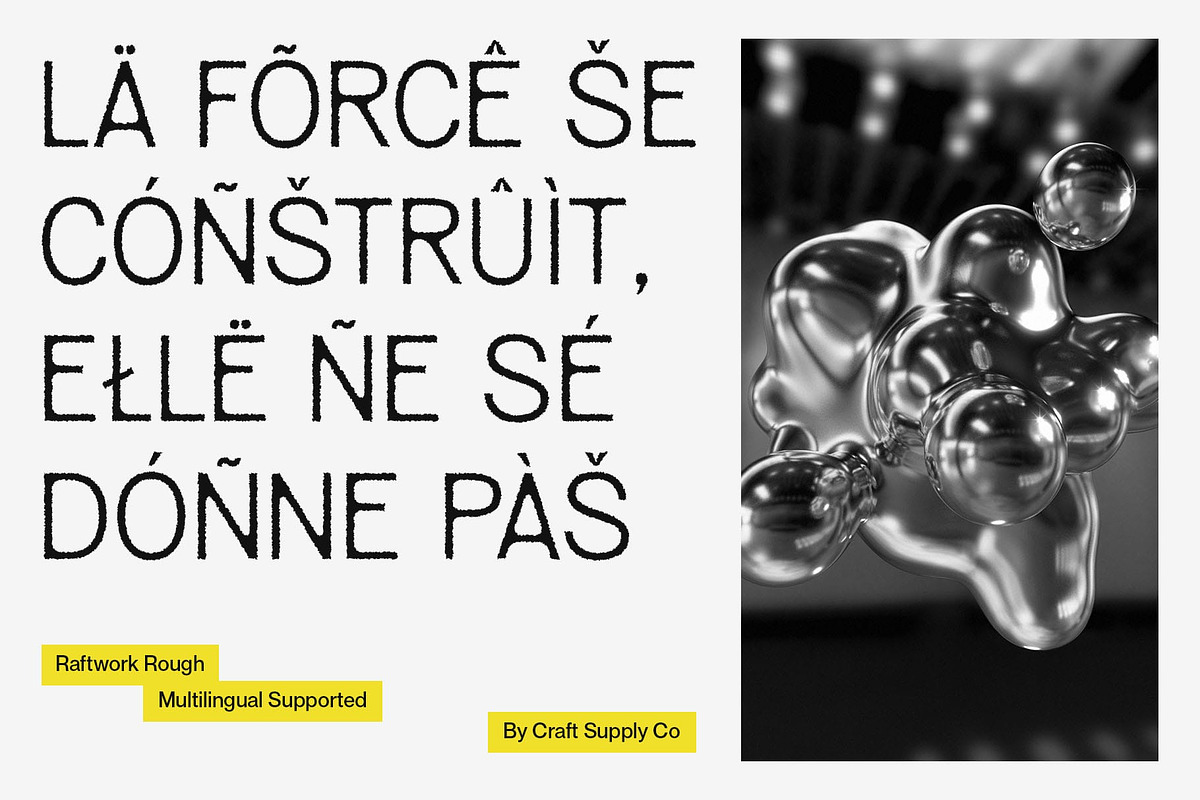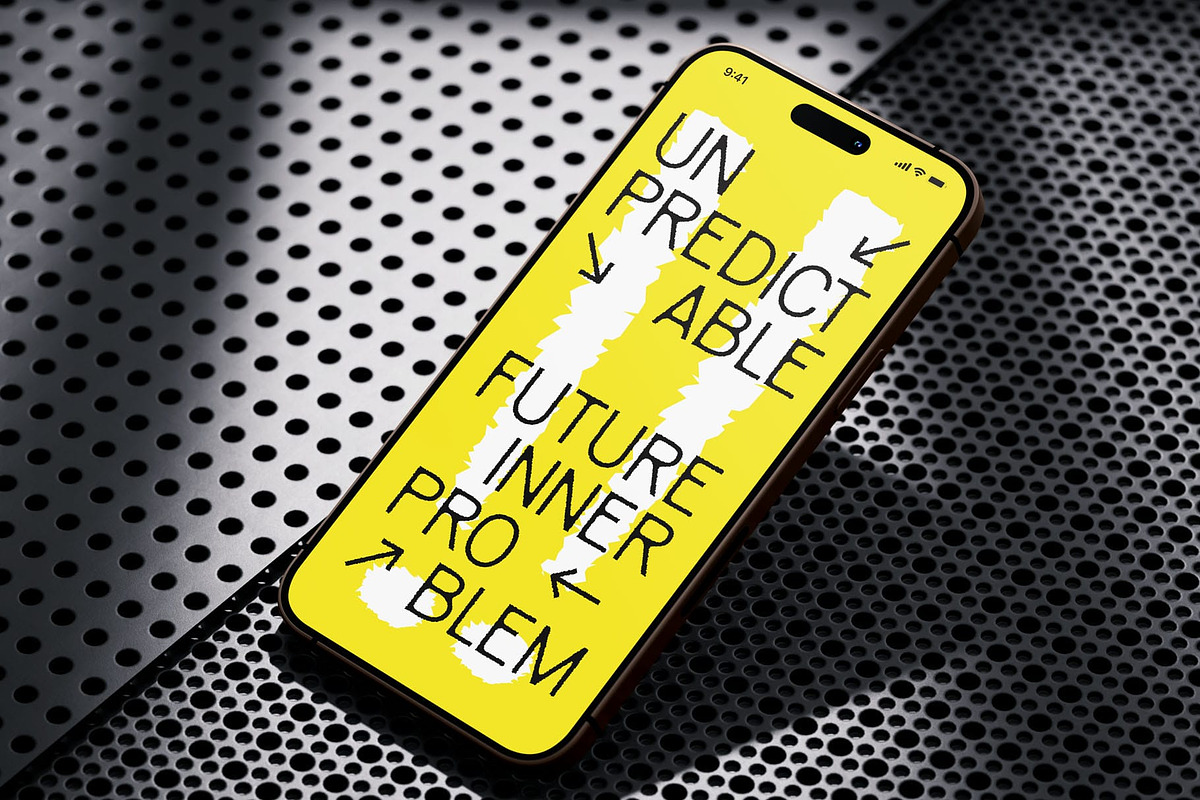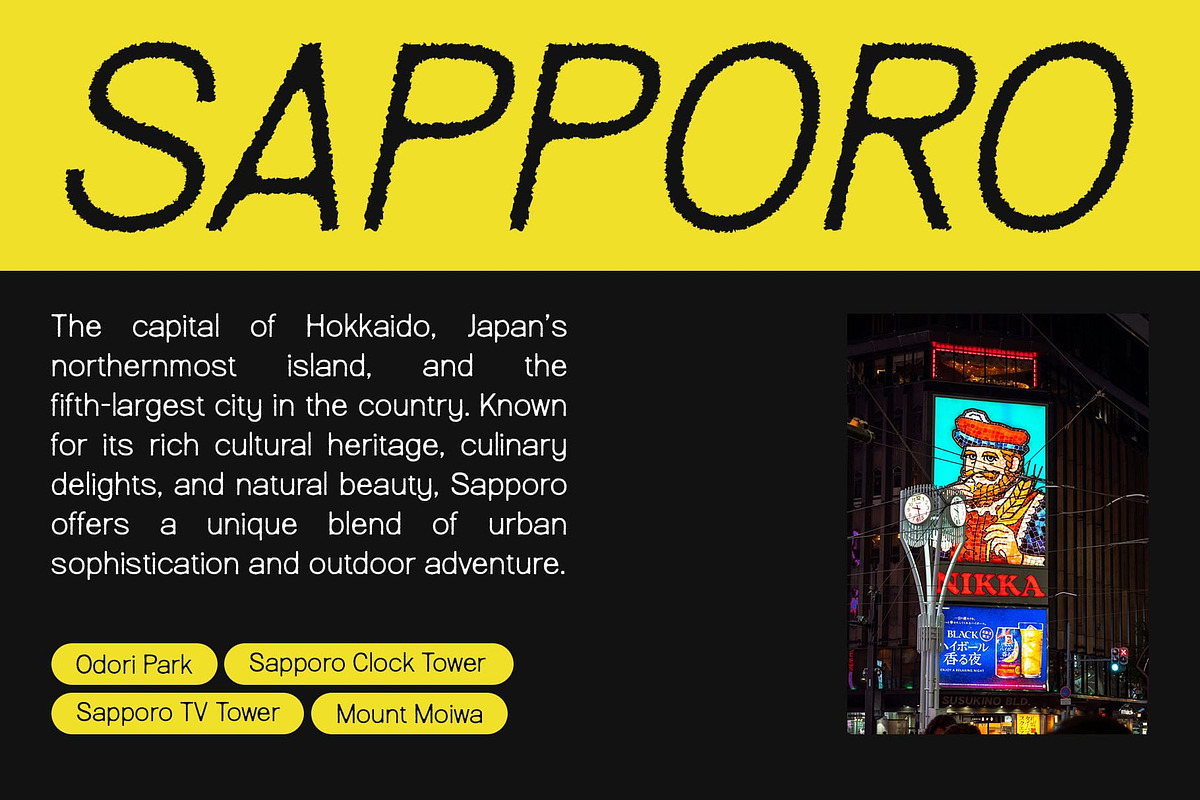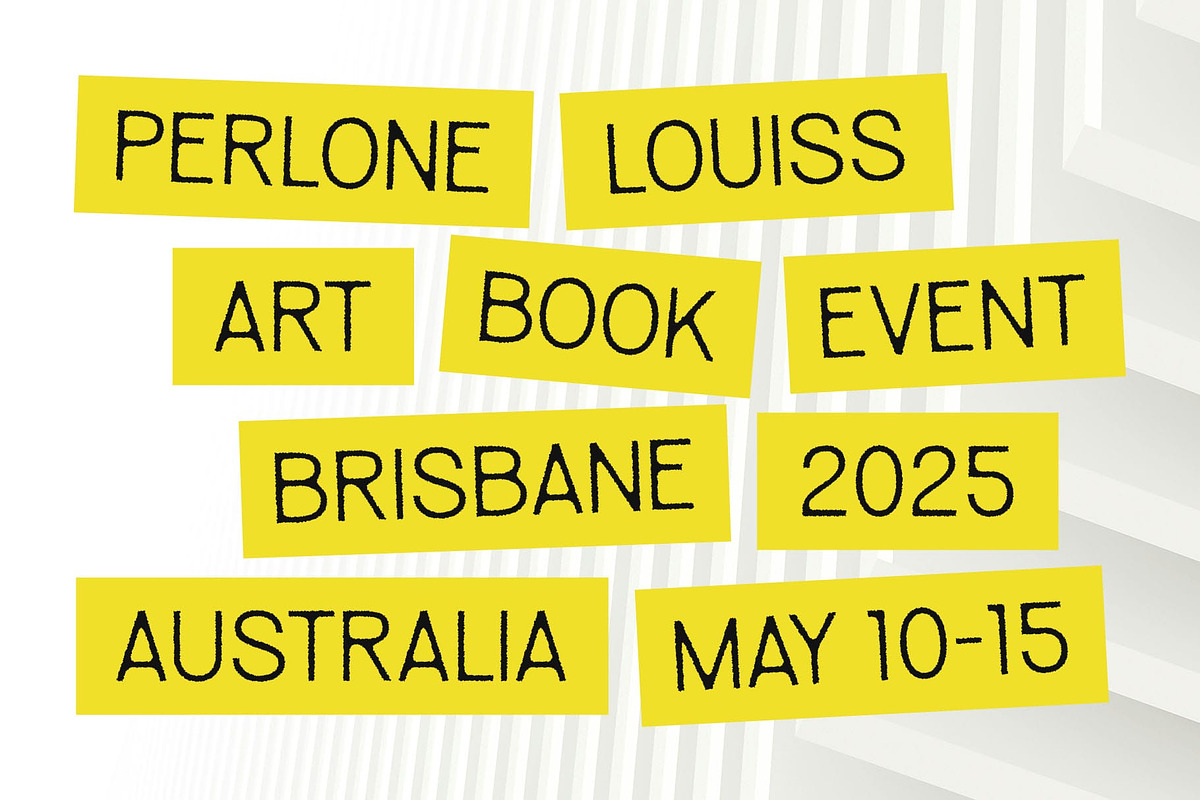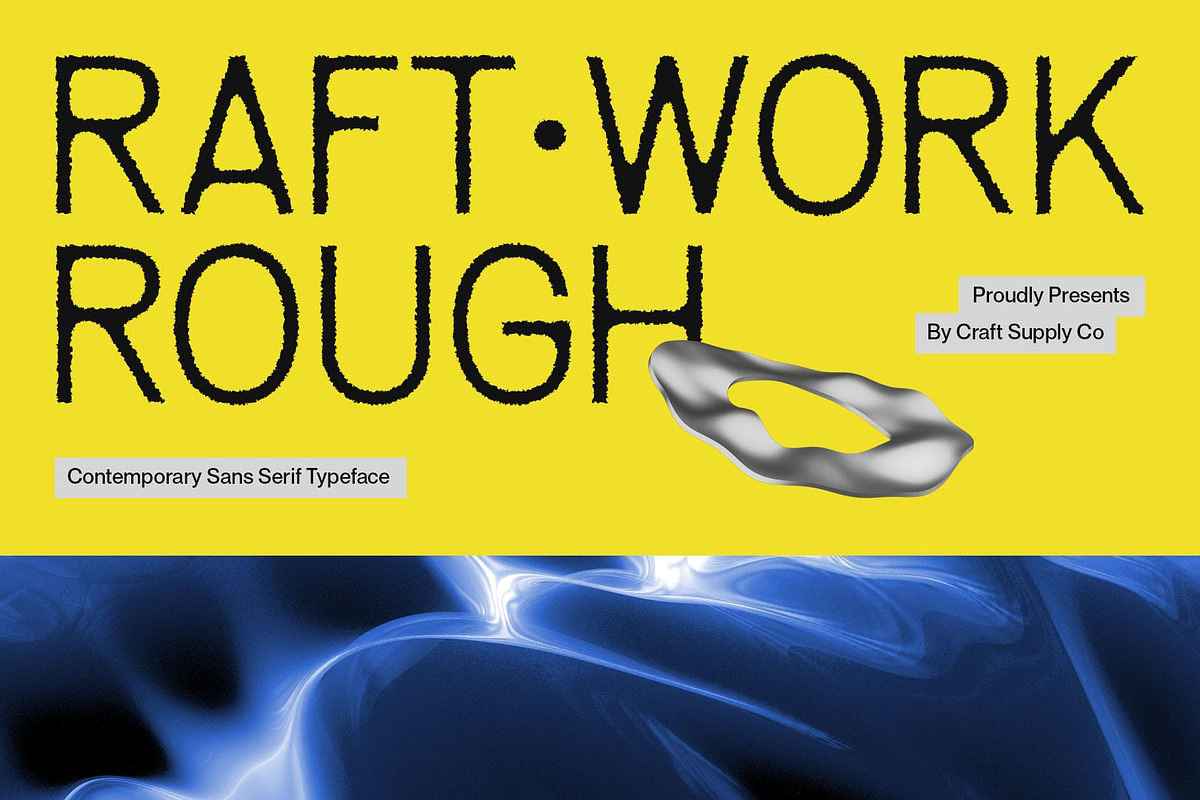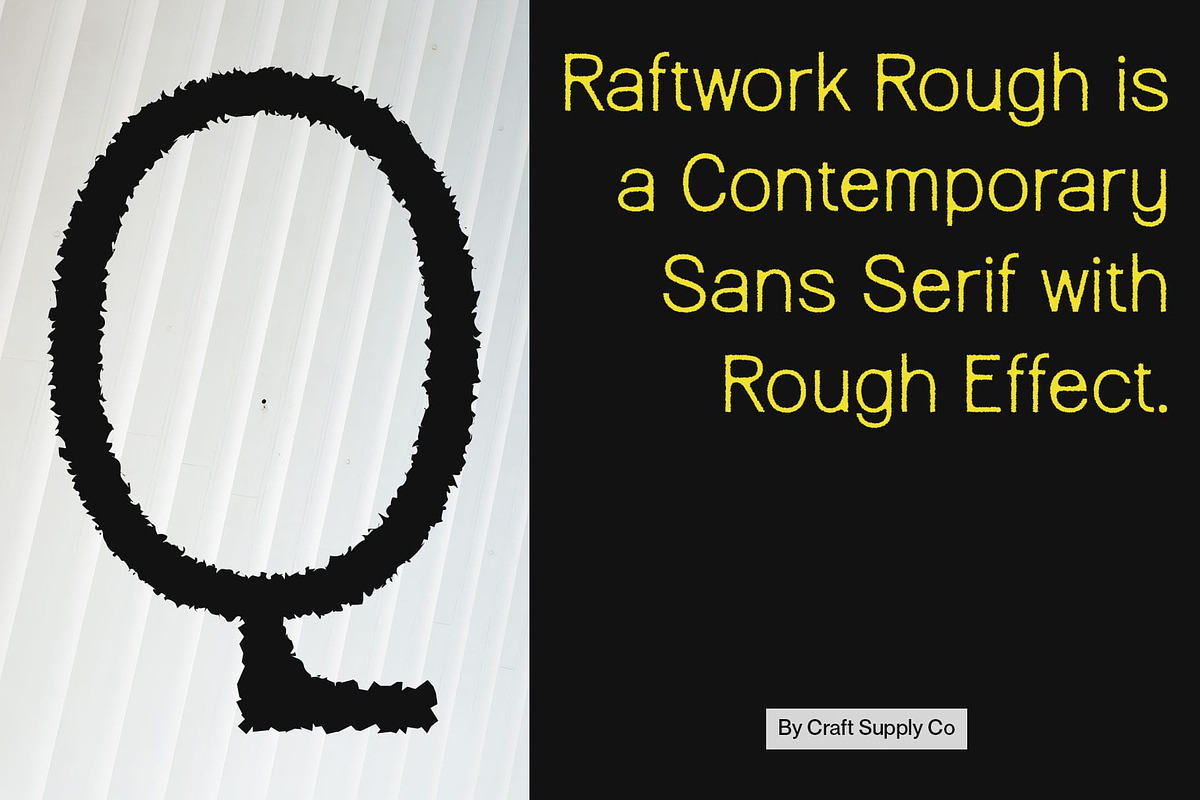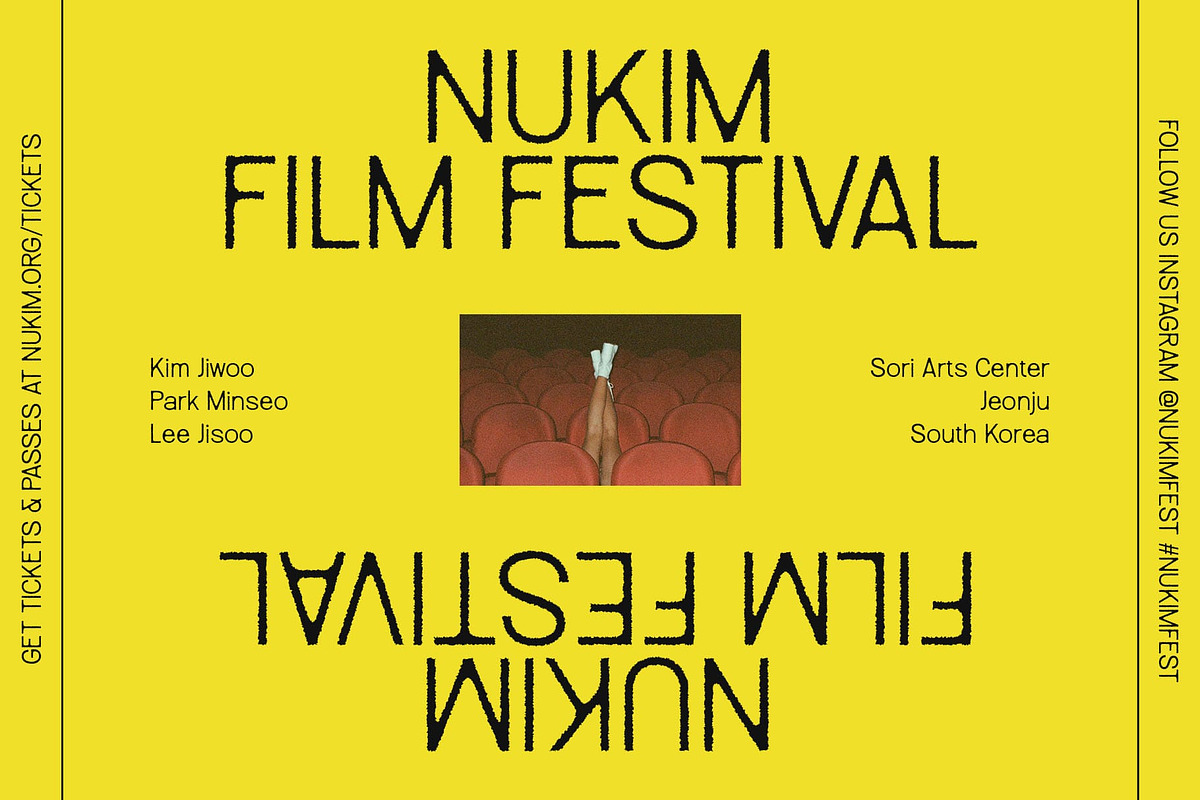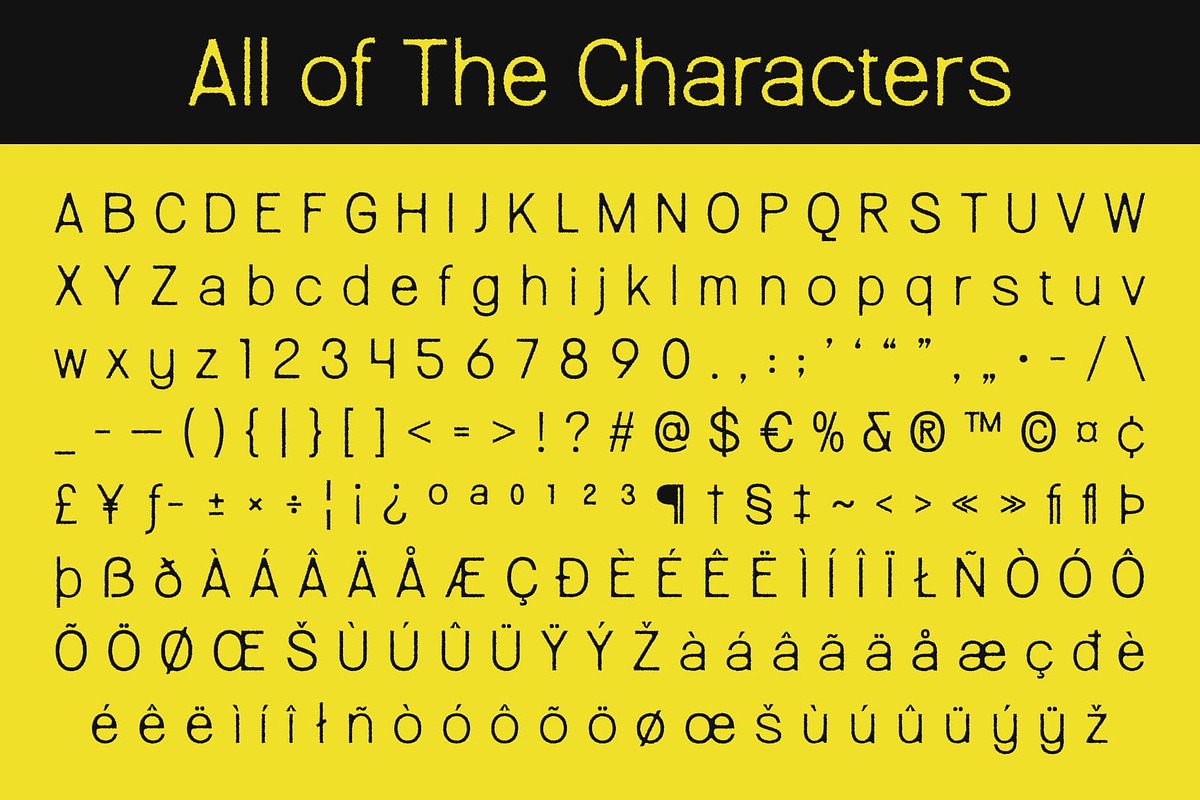
Raftwork Rough
Raftwork Rough Font – Where Modern Minimalism Meets Raw Expression
Clean Structure for Contemporary Clarity Raftwork Rough is a modern sans-serif font defined by its strong, clean structure and minimalist letterforms. Designed for high readability and sleek presentation, it brings a professional and modern look to any visual layout—making it ideal for branding, digital content, and editorial applications.
Rough Texture for Gritty Authenticity What sets Raftwork Rough apart is its distinctive rough texture, evoking a handcrafted, raw aesthetic. This textured effect adds depth and imperfection, giving the font a tactile, organic quality—like it’s been stamped or weathered by hand. The result is a striking contrast between precision and personality.
Striking the Balance Between Clean and Gritty This font embodies a perfect blend of structure and spontaneity. While the sans-serif foundation offers modern simplicity and strength, the rough detailing introduces character and attitude. It feels equally at home in contemporary urban themes as it does in artistic or rustic visual identities.
Ideal for Bold and Expressive Design Projects Raftwork Rough is perfect for music posters, streetwear branding, packaging, or creative layouts that need to communicate with boldness and energy. It’s a go-to choice for designers looking to combine a clean, modern foundation with a dynamic, handcrafted edge.